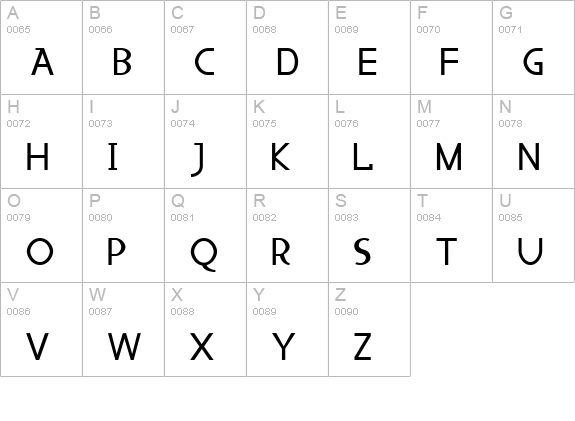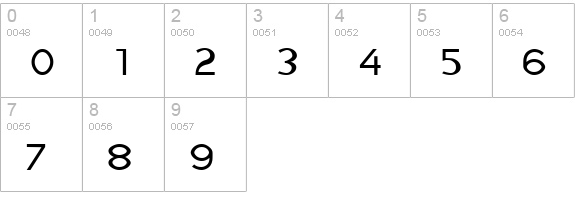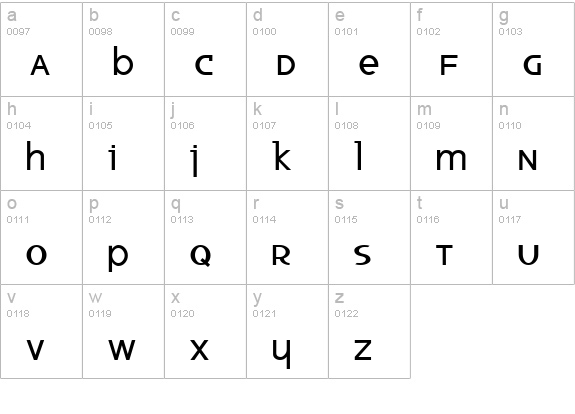
Ketchup Spaghetti Font Details
Introducing Ketchup Spaghetti, a delightful and whimsical font that brings a touch of playful nostalgia to any project. This font exudes a sense of youthful energy and creativity, making it the perfect choice for designs aimed at capturing attention and leaving a lasting impression. Ketchup Spaghetti features a unique combination of bold and curvaceous letterforms, creating a harmonious blend of modernity and classic charm. Its rounded edges and smooth lines give it a friendly and approachable feel, making it ideal for a wide range of applications. Whether you're designing a logo, creating eye-catching headlines, or crafting invitations, Ketchup Spaghetti will effortlessly inject a sense of fun and personality into your work. Its versatility allows it to adapt to various themes and styles, making it suitable for both professional and personal projects. This font is available for free download exclusively at FontsMarket.com. With just a few clicks, you can enhance your design arsenal with this exciting typeface, without breaking the bank. Its availability as a free font ensures that everyone can enjoy its playful aesthetic, regardless of budget or resources. So why wait? Elevate your designs with Ketchup Spaghetti and unleash your creativity. Download this captivating font today and let it add a dash of excitement and joy to your next project.